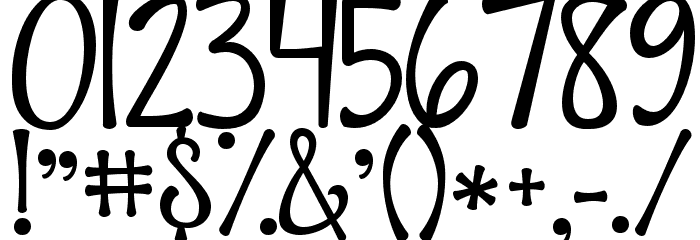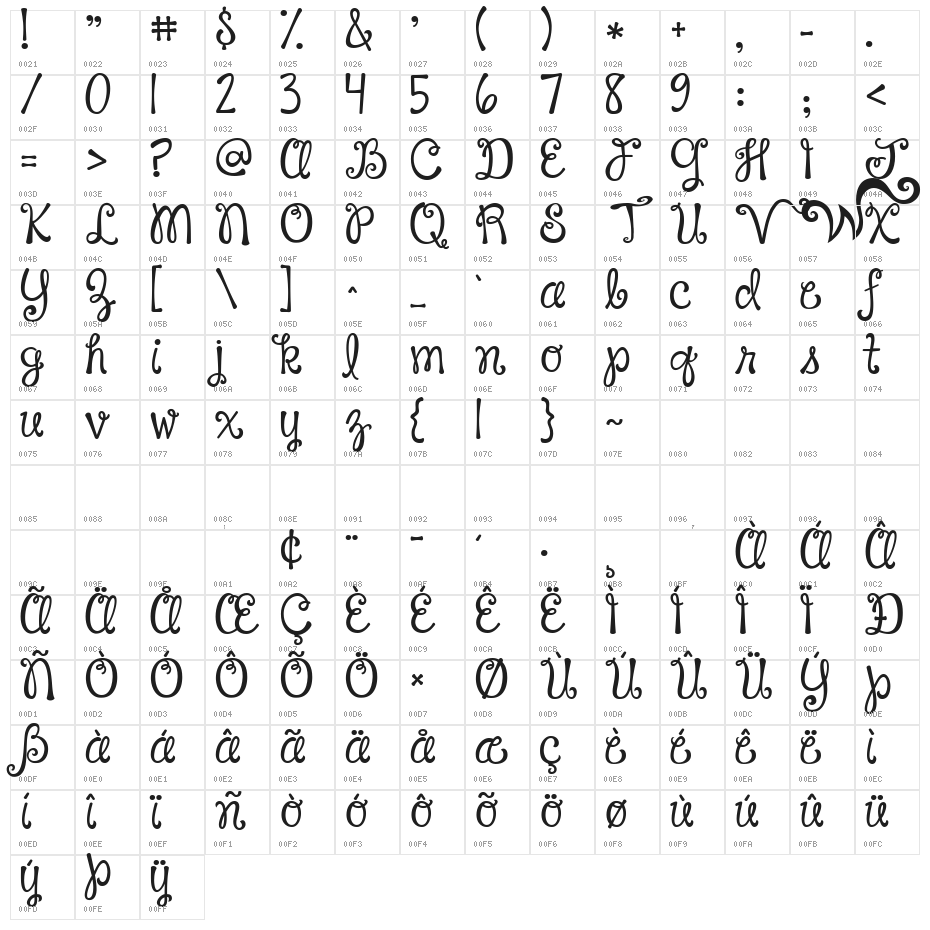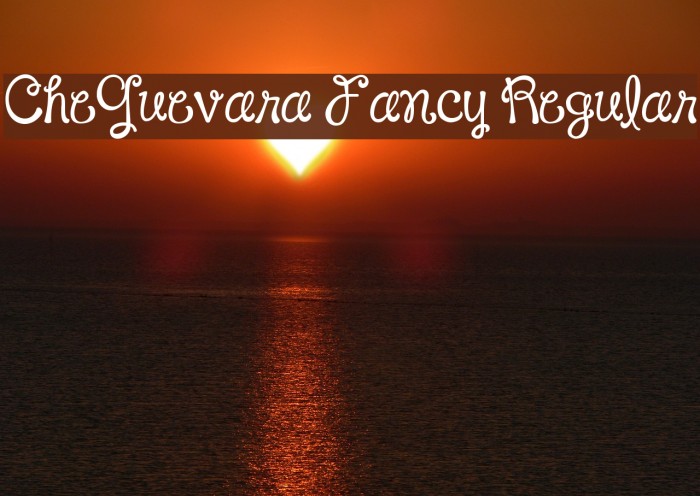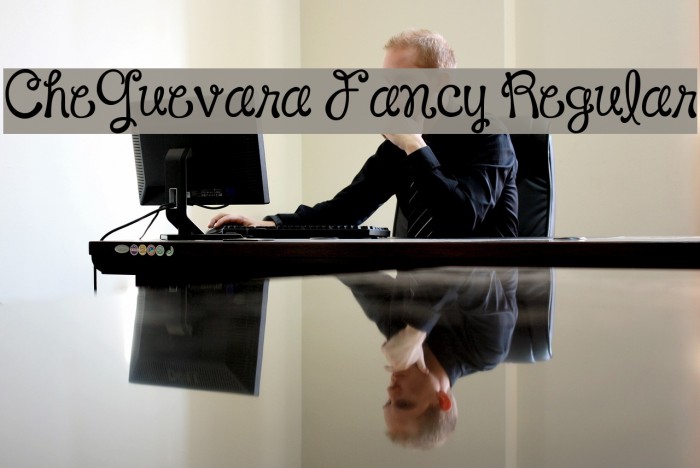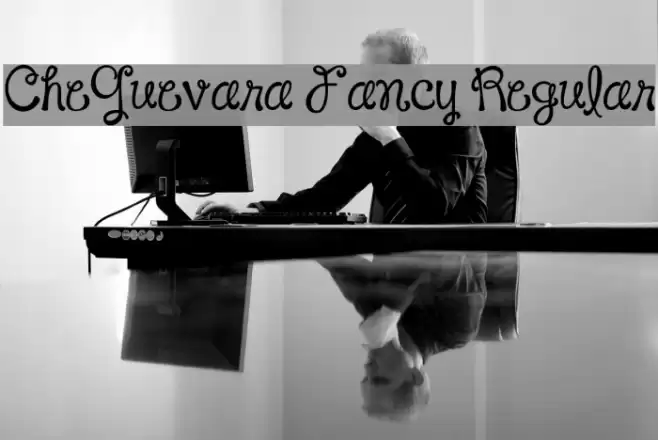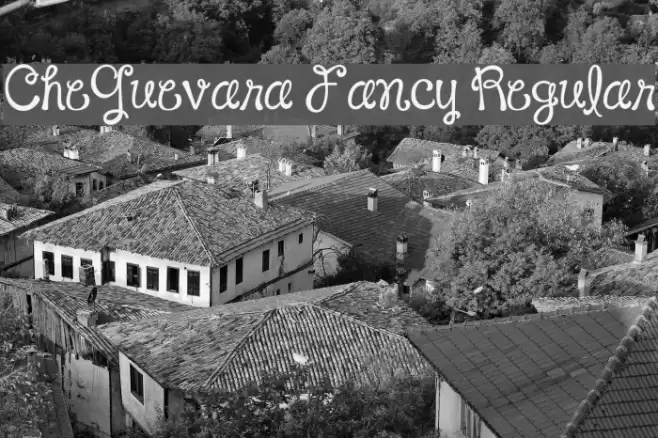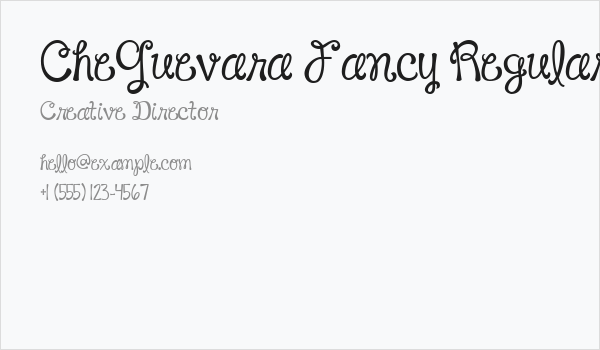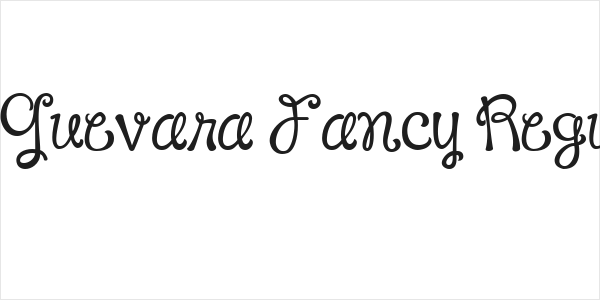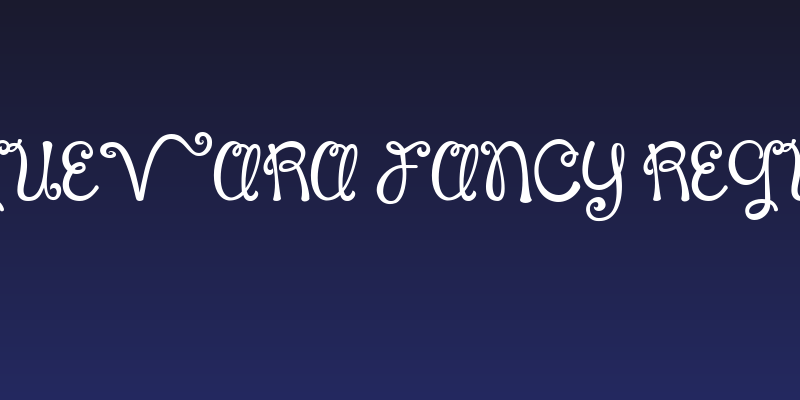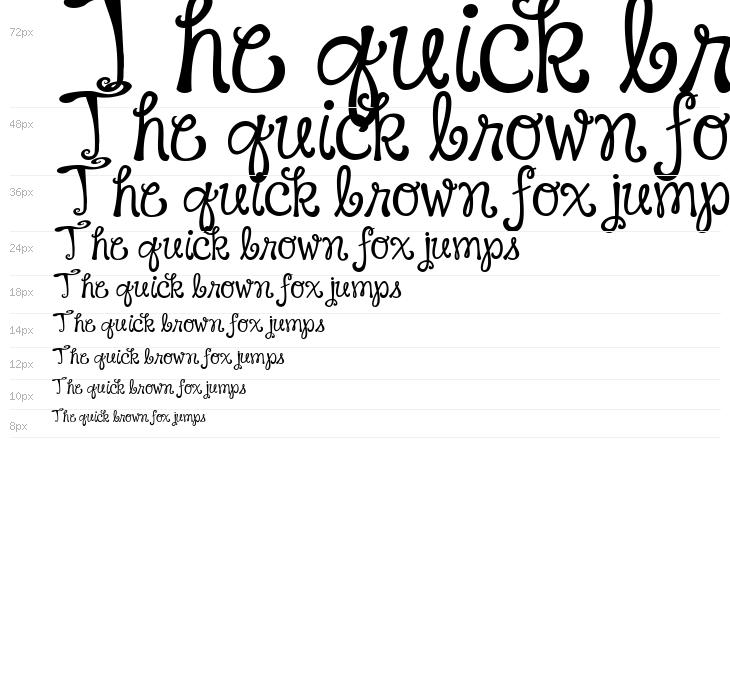
CheGuevara Fancy Regular Font
CheGuevara Fancy Regular Description
This font features a whimsical and playful design with a decorative flair. Each character is adorned with unique curls and swirls, giving it a lively and artistic appearance. The uppercase letters are bold and expressive, while the lowercase letters maintain a consistent style with a slightly more compact form. Numbers and special characters follow the same decorative theme, ensuring a cohesive look throughout. The font's overall style is reminiscent of hand-drawn calligraphy, making it suitable for creative and artistic projects.
| Proposed Projects | Ideal for greeting cards, invitations, posters, and artistic branding projects. |